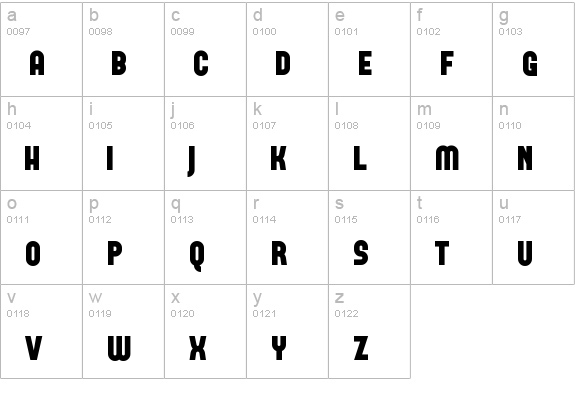
FORQUE Font Details
Introducing FORQUE, a stunningly elegant font that effortlessly blends timeless sophistication with contemporary flair. With its clean lines and graceful curves, FORQUE exudes a sense of refinement that is perfect for any design project. This versatile font is suitable for a wide range of applications, whether you're designing a logo, creating a brand identity, or crafting eye-catching headlines. Its balanced proportions and meticulous attention to detail ensure legibility and readability, even at smaller sizes. FORQUE's unique character lies in its ability to seamlessly adapt to different design styles. Whether you're aiming for a minimalist and modern aesthetic, or a more classic and traditional look, this font has you covered. Its versatility allows you to effortlessly convey your message and capture attention with every letter. What makes FORQUE even more remarkable is that it is freely available to download at FontsMarket.com. This means that you can enhance your design projects with this exceptional font without any cost. Embrace the freedom to explore and experiment with this beautifully crafted typeface, and let your creativity shine. So why wait? Elevate your designs to new heights with FORQUE. Download this exquisite font today from FontsMarket.com and bring a touch of elegance and sophistication to your next project.